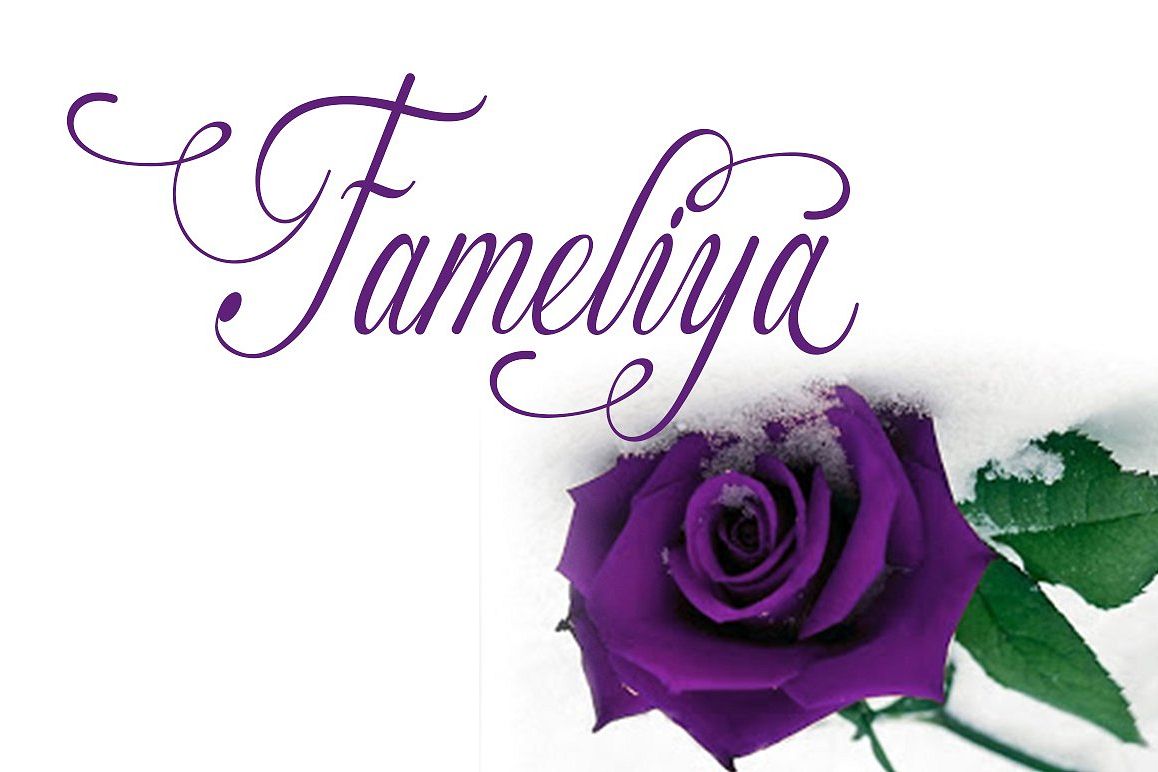
Fameliya is a script font that has the characteristic wedding, it is very suitable to make certain label and event business and you could be using for a unique piece.The alternative characters in Fameliya Font were divided into several OpenType features such as Stylistic Alternates, Stylistic Sets, Swash and Ligature. The OpenType features can be accessed by using OpenType savvy programs such as Adobe Illustrator and Adobe InDesign.